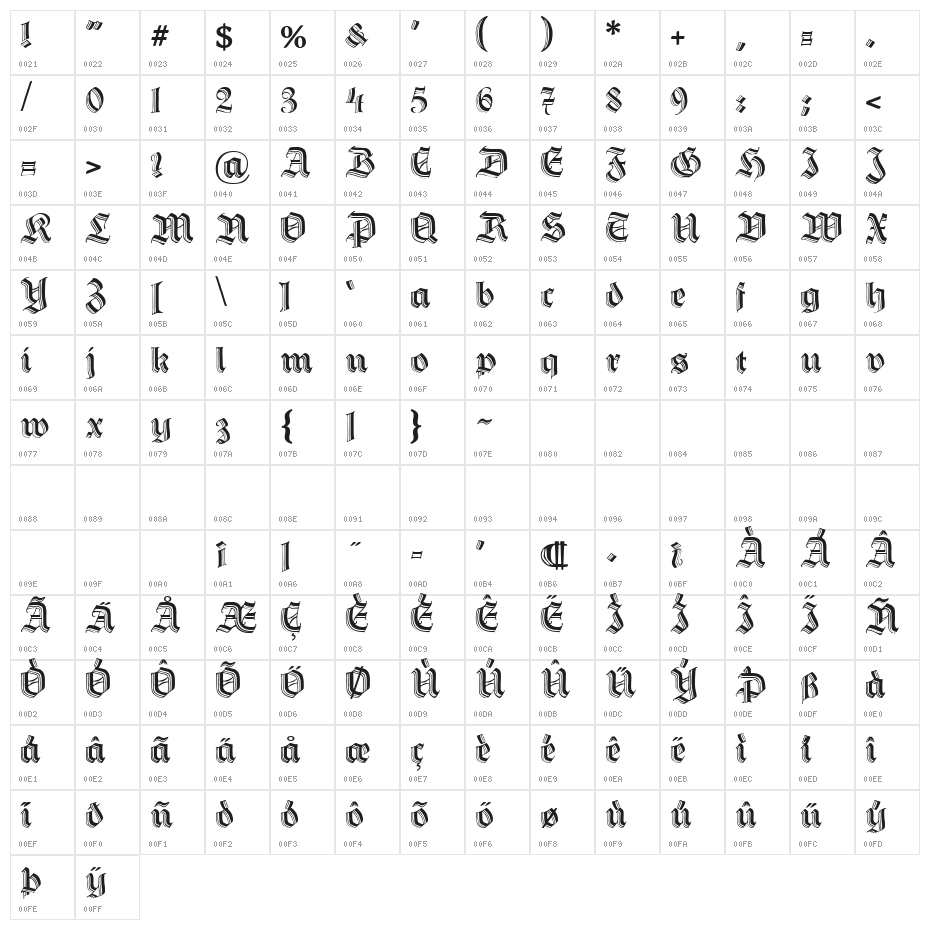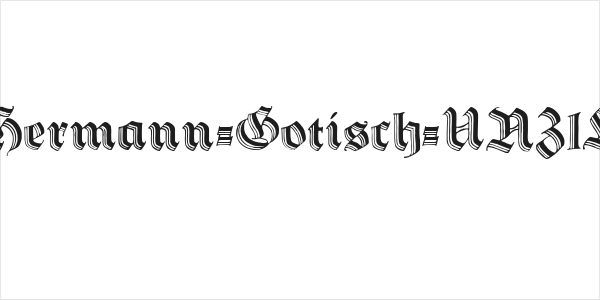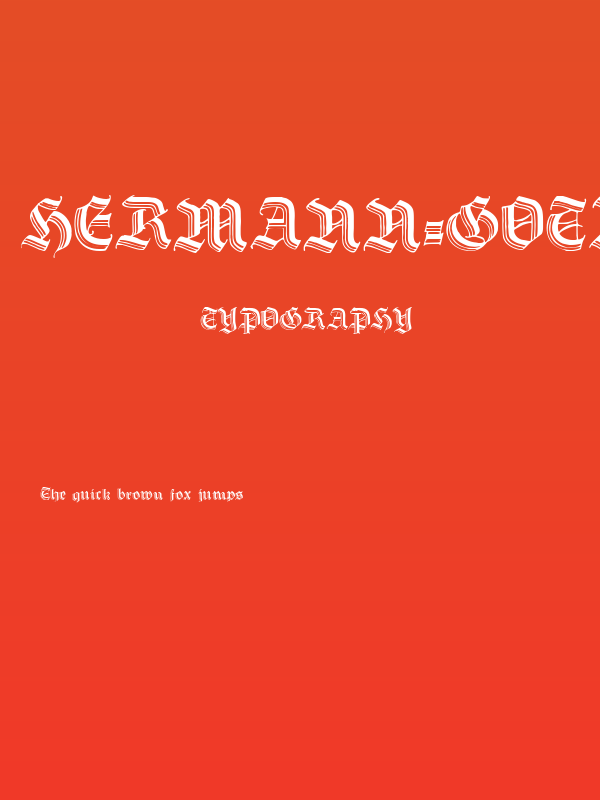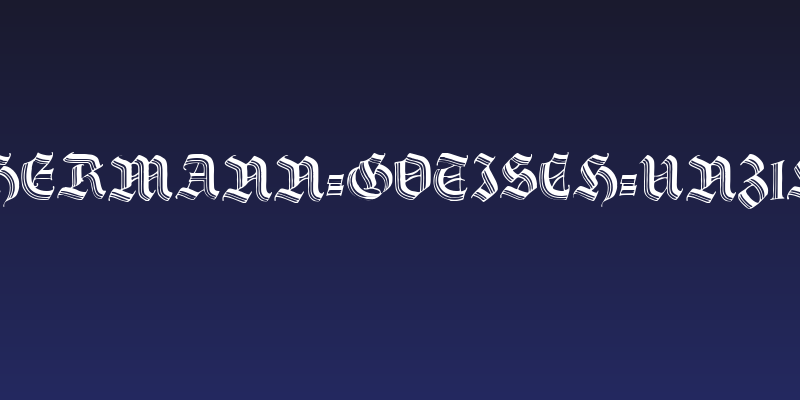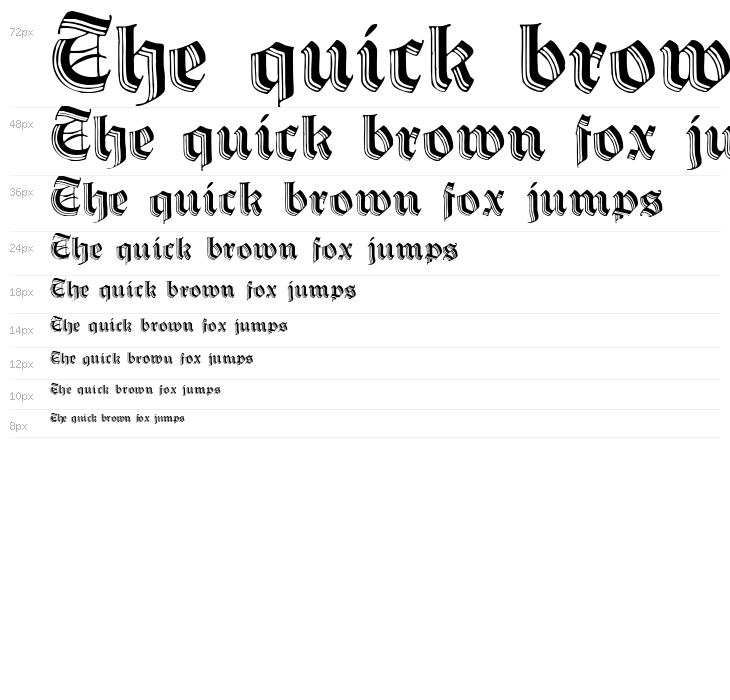
Hermann-Gotisch-UNZ1L Font
Hermann-Gotisch-UNZ1L Description
This font exudes a classic Gothic style, characterized by its intricate and ornate letterforms. The sharp, angular lines and dramatic curves give it a distinct medieval appearance. Each character is designed with high contrast between thick and thin strokes, enhancing its bold and authoritative presence. The uppercase and lowercase letters maintain a consistent style, with elaborate serifs and decorative elements that add to its historical charm. The numerals and special characters are equally detailed, ensuring a cohesive look across all text elements. This font is perfect for projects that require a touch of elegance and tradition.
| Proposed Projects | Ideal for historical documents, book covers, event invitations, and branding that requires a traditional or medieval aesthetic. |